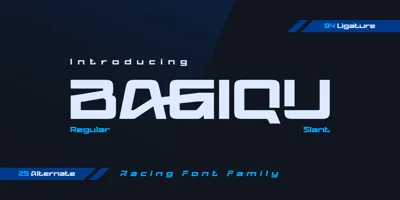
Bagiqu Font
Bagiqu Font is perfect for innovative design projects including tech startup branding, creative agency logos, modern app interfaces, digital platform designs, contemporary marketing materials, forward-thinking business presentations, cutting-edge product packaging, progressive web designs, dynamic social media graphics, and trendsetting brand communications that require distinctive typography with creative flair and modern sophistication.
What makes Bagiqu Font so exciting is its unique character structure and innovative letterform design that breaks conventional typography boundaries while maintaining excellent readability and professional appeal. This distinctive typeface features creative geometric elements, optimized spacing, and subtle design innovations that convey originality and forward-thinking approaches, making it perfect for brands seeking to differentiate themselves through bold typographic choices and contemporary design sensibilities.
Bagiqu Font typically includes comprehensive font families with light, regular, medium, bold, and black weights, plus matching italic styles, alternative characters, and extended language support, providing designers with complete flexibility to create dynamic brand identities and establish clear visual hierarchies for modern applications.
This innovative Bagiqu Font offers creative professionals an exceptional tool for projects requiring distinctive design personality and contemporary appeal. Whether you're developing startup branding, creative digital platforms, or cutting-edge marketing campaigns, this font delivers unique character while ensuring functional clarity and broad accessibility. The creative design elements and versatile weight range make it particularly valuable for technology companies, design agencies, and innovative brands seeking to communicate creativity, originality, and forward-thinking approaches through typography that stands out in competitive markets and resonates with audiences appreciating bold, contemporary design solutions.